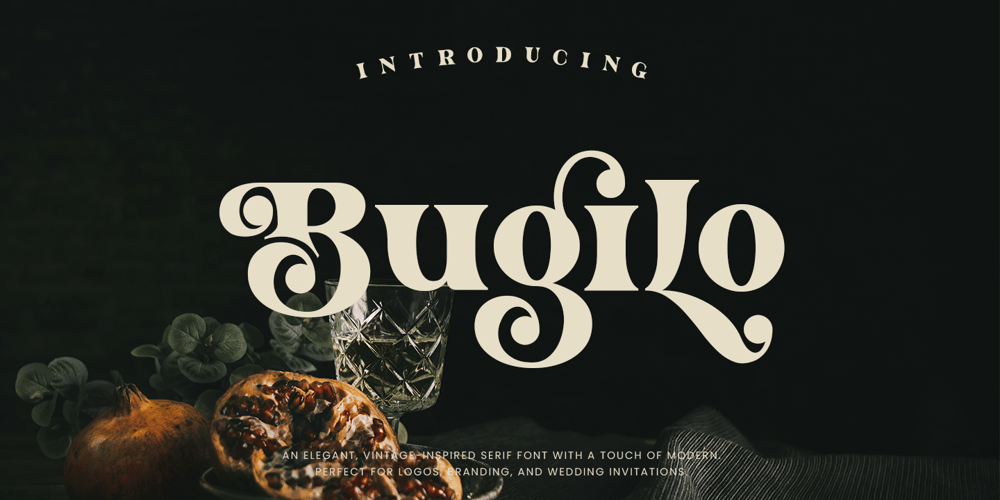
Bugilo Font Family was designed by Mussyayin and published by Say Studio. Bugilo contains 2 styles and family package options. Bugilo – Modern Bold FontBugilo feels playfully nostalgic and delivers an incredible vintage aesthetic. Use this serif font to add that special retro touch to any design idea you can think of!Masterfully designed to become a true favorite, this font has the potential to bring each of your creative ideas to the highest level!This font is PUA encoded which means you can access all of the glyphs and swashes with ease!Features : uppercase & lowercase numbers and punctuation multilingual ligatures alternates PUA encoded Enjoy!